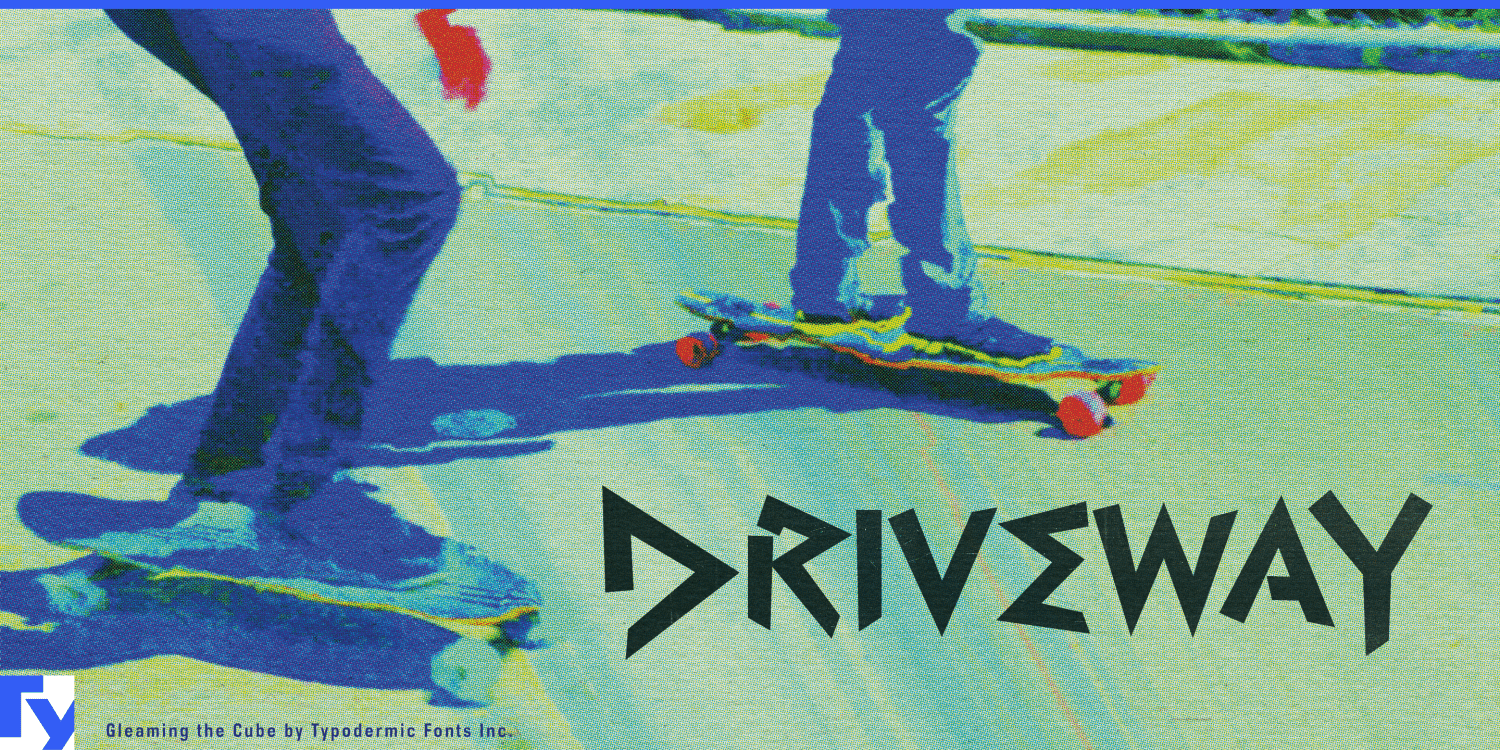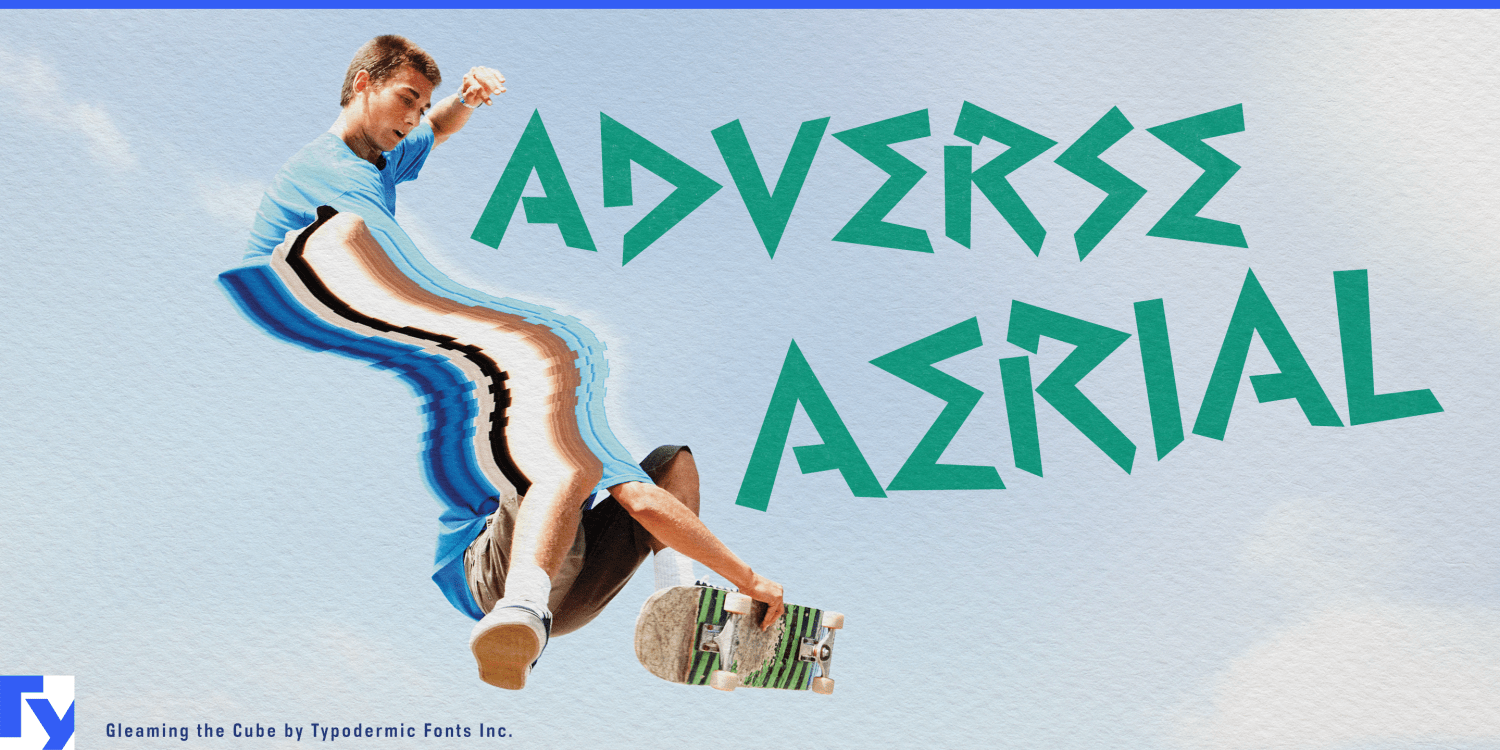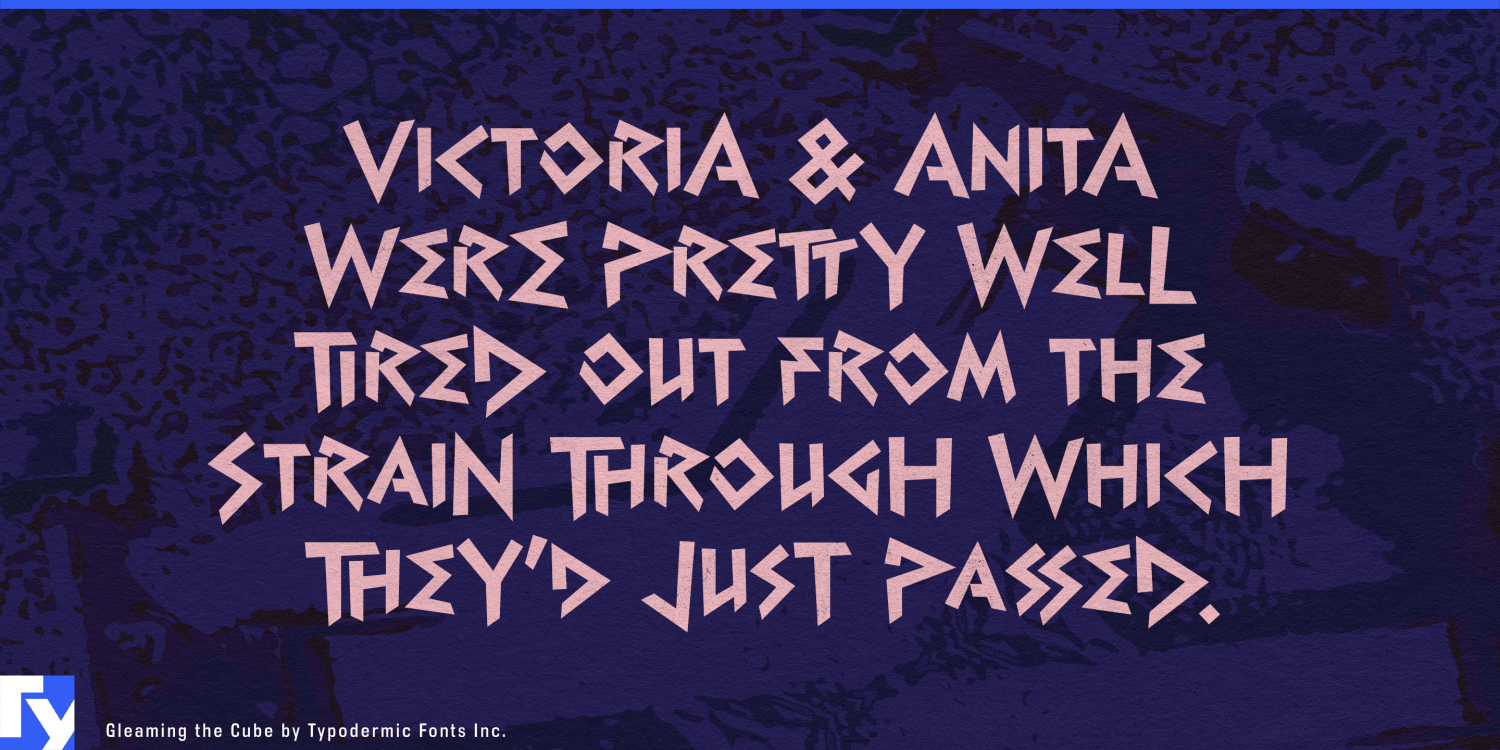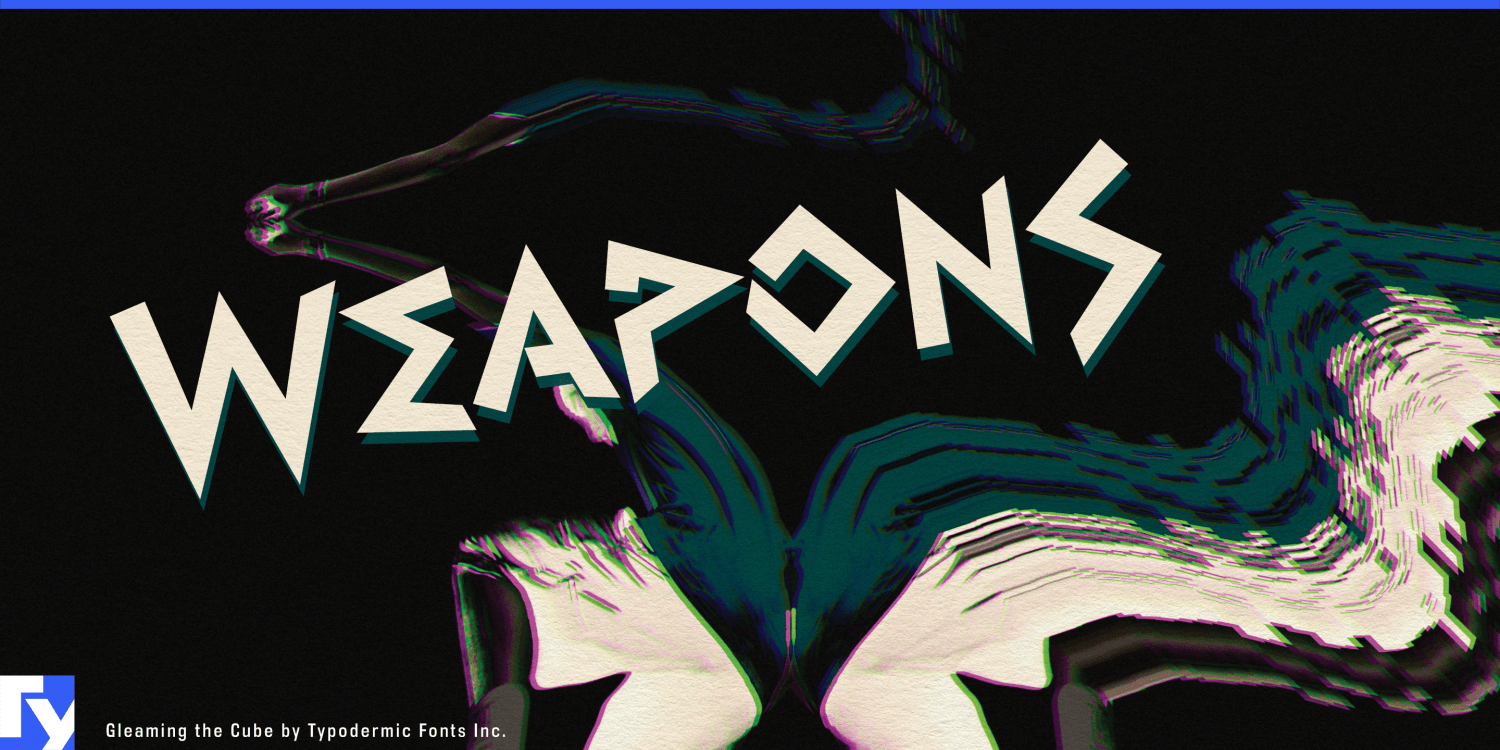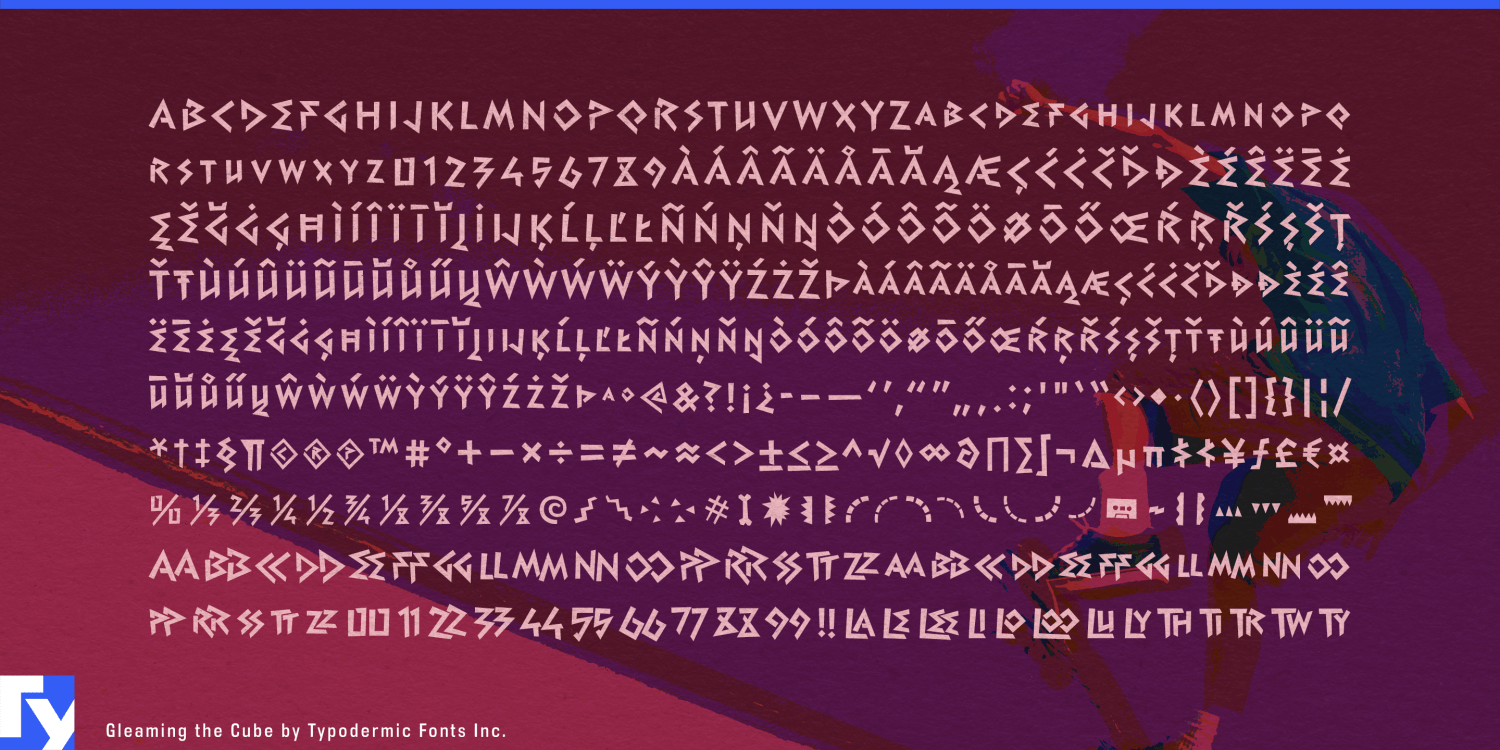
Gleaming the Cube
Font Family by Typodermic
Late-’80s and early-’90s action graphics are easy to reduce to pixels, chrome and neon. Another visual language from the period was built from hard angles, wedges, zigzags and sudden changes of direction. Gleaming the Cube takes that route.
Its geometric, pseudo-Greek letterforms seem to collide with invisible boundaries and shoot off at new angles, giving short words a strong sense of ricochet. Capital letters at the beginning and end of a word can create a compact, emblem-like silhouette, while combination ligatures and custom circa-1990 symbols add more material for building display graphics.
Skate culture is the historical anchor, making Gleaming the Cube a natural fit for deck graphics, skate-shop stickers, equipment packaging, BMX race plates and other places where lettering becomes part of the object. That same rebound geometry opens a surprisingly contemporary direction in pickleball: paddle faces, model names, ball packaging, tournament graphics and club merchandise can turn the font’s abrupt directional changes into a visual echo of the game itself.
The angles also work remarkably well with snacks. Sour candy, spicy chips, gum, freezer pops and slush drinks give wedges, bursts and zigzags somewhere useful to go, while the circa-1990 flavour can tap into the convenience-store nostalgia of older millennials and younger Gen X. For short product names, flavour names, rider names and headlines, Gleaming the Cube supplies the graphic impact; pair it with a quieter sans for ingredients, specifications, schedules and supporting copy.